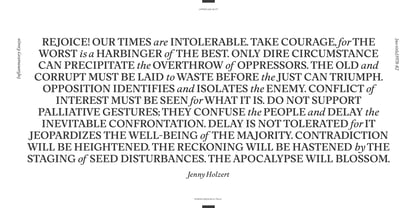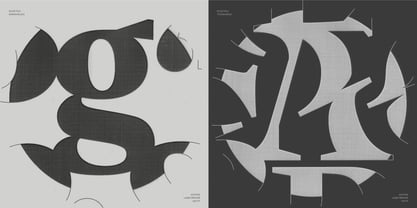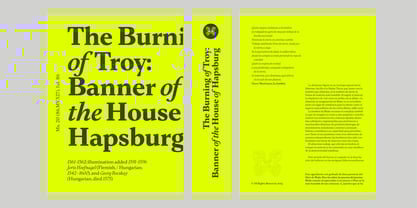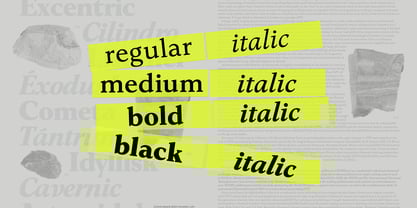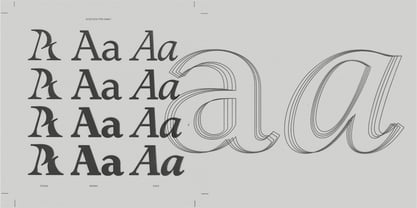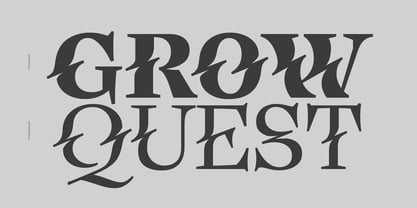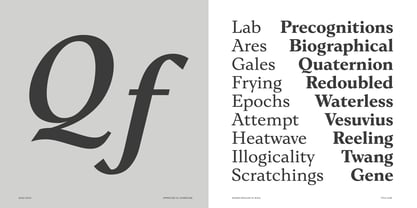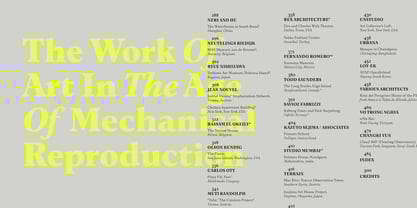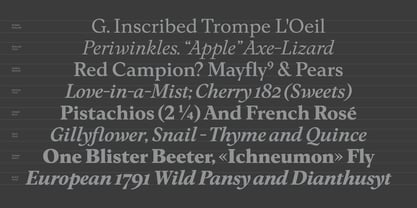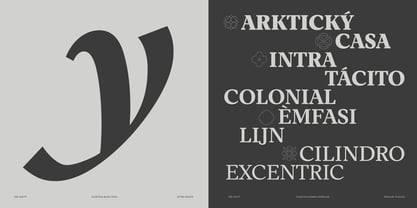
Eclectica
by Sudtipos
The Eclectica Font Family was designed by Alejandro Paul and published by Sudtipos. Eclectica contains 15 styles and family package options.
Ecléctica doesn’t worry about labels. Is not a Humanist or Rational but isn’t a Transitional one either. While it refuses to be boxed into a type classification, it also nods to tradition. Abrupt and angular modulation, unexpected asymmetries in serifs– soft and pointed terminals and classical conventions in proportions might contradict each other, these are the details of the result of mashing up writing and type theories at its conception to become a typeface that let the text on the page breathe the tensions of its details. Its Italics present a contrast to the Roman version creating more dynamism by the angle while still maintaining cohesion upon closer inspection. As in every family, there’s a black sheep: This tilting version chose a controversial path: To disrupt its basic uppercase form by slashing the logic of its down strokes to create a running bridge in the main stems, it intends to provide a loud and robust voice to the group of letters.